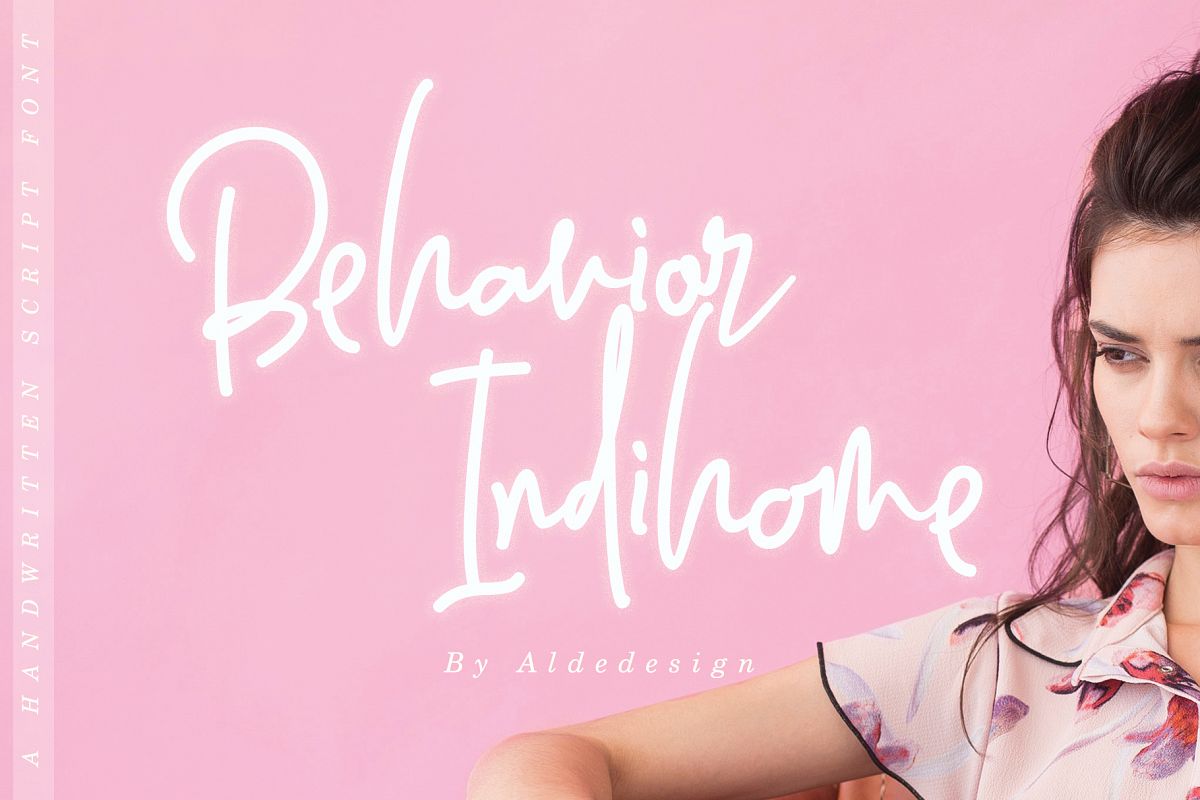
Behavior Indihome | Signature Font
Behavior Indihome is a font with simple and classy taste, comes with opentype features such as ligatures. We keep this font looks classy, readable, elegant, stylish, catchy and absolutly easy to use.
Behavior Indihome is the great choice for watermark on photography, signature or signature logo design, album cover, business card, quotes, and many other design project.
• Stylish handwritten style
• Special Ligatures